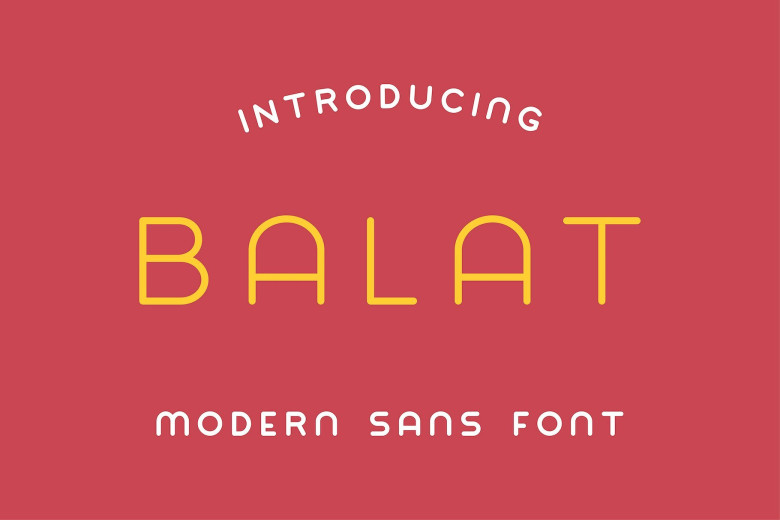
Balat Sans Font
Introducing Balat Font! It is designed and shared by Krafti Lab. Balat Typeface is a clean and beautiful sans serif font, with smooth edges to reproduce vintage printing. Perfect for vintage logo designs, texts, presentations, posters, magazines, notices, headers, titles, name card, magazine, web layouts, invitations, headers, branding and other any business related.